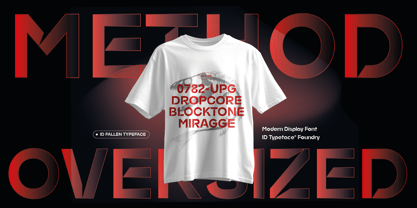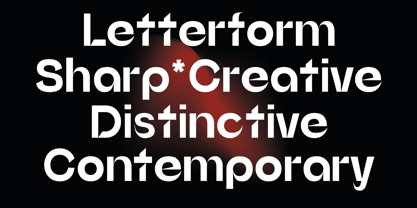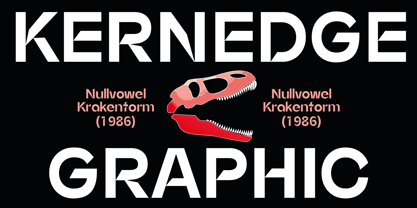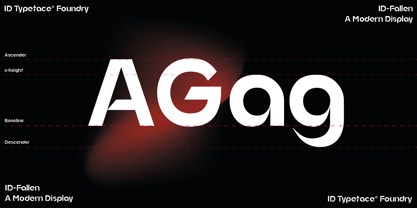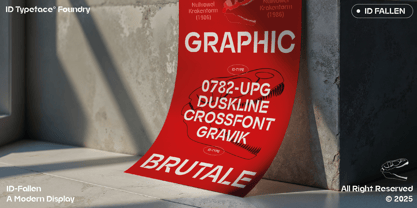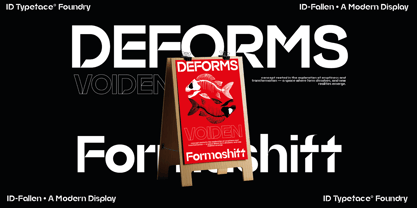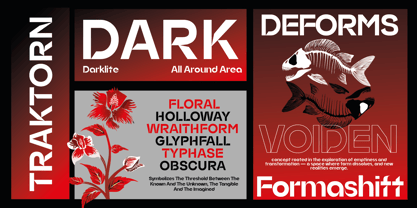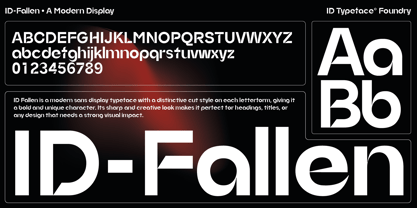
ID Fallen
by ID Typeface
The ID Fallen Font Family was designed by Khairil Anwar and published by ID Typeface. ID Fallen contains 1 styles. More about this family
ID Fallen is a modern sans display typeface with a distinctive cut style on each letterform, giving it a bold and unique character. Its sharp and creative look makes it perfect for headings, titles, or any design that needs a strong visual impact.
Designed with precision, ID Fallen balances clean geometry with artistic details, making it versatile for both digital and print applications. From branding and posters to editorial layouts and packaging, this typeface delivers clarity, personality, and a contemporary edge that commands attention.